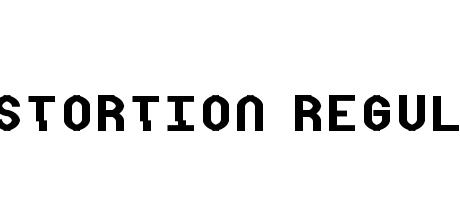
Distortion
Distortion Regular, a bold and chunky sans-serif, exudes a raw, almost industrial aesthetic. Its blocky characters, with slightly uneven edges and varying widths, suggest a deliberate imperfection. This gives it a gritty, slightly distorted, yet still highly legible feel. The weight and boldness are striking, lending a sense of power and impact.